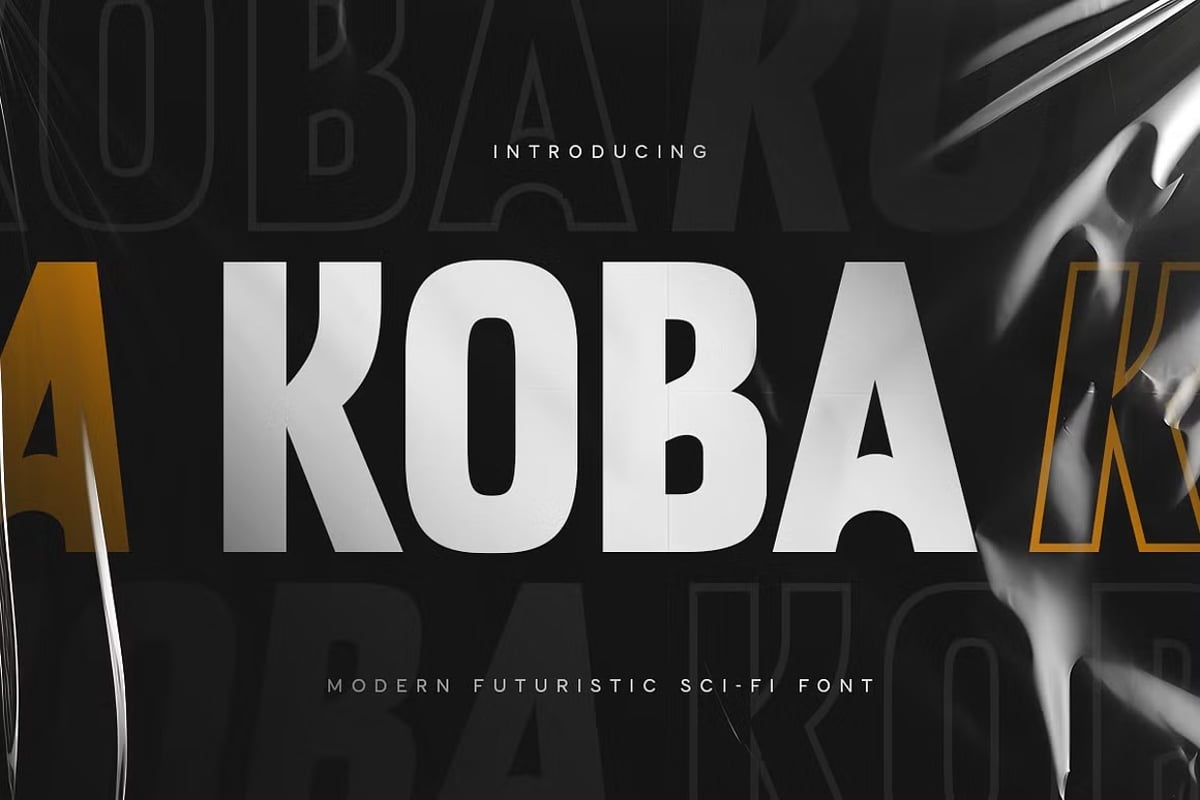
KOBA - Modern Brutalism Logo Font
Make a bold statement with KOBA - a striking modern brutalism font that transforms your branding with minimalist power. This contemporary sans serif typeface combines clean geometric shapes with industrial strength, delivering maximum impact for logo designs, poster projects, and brand identity systems. The font's unique character variations allow you to create distinctive combinations effortlessly, while maintaining excellent legibility across all applications. Perfect for branding projects, so...